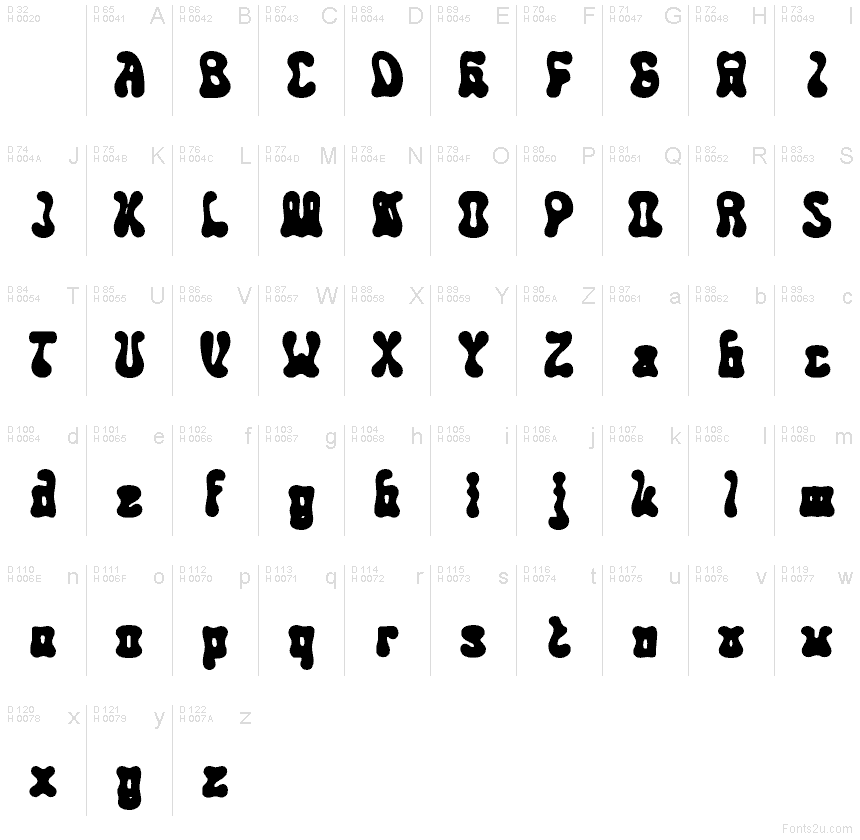
CS Shiver Drawn font by Craft Supply Co. is a free cartoon display font. Part of the CS Shiver family, it oozes across the line with swollen, wobbly strokes and soft, inky edges that feel hand-drawn. Letters swell like puddles, with a playful shiver that reads spooky without turning harsh—more slime-and-smirk than gore—making it instantly eye-catching at big sizes.
Using CS Shiver Drawn, your Halloween posters, haunted house flyers, slime-party invites, candy packaging, YouTube thumbnails, and stickers gain a gooey, high-contrast punch. It shines on loud headlines; give it generous line spacing so the blobs breathe. Pair with a clean geometric sans for captions or dates to keep the chaos charming and readable. This free font brings spooky fun without losing clarity.